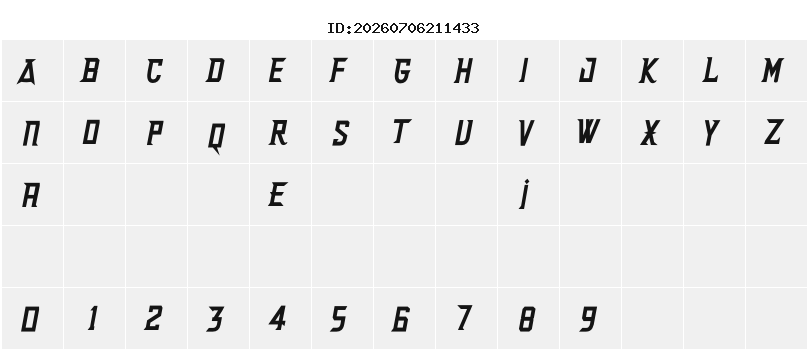
Delux Ultra Preview
• Font Name: Delux Ultra
About Delux Ultra.otf
Delux Ultra.otf is a modern, elegant sans-serif font designed for ultimate readability and visual harmony. Perfect for branding, headlines, web design, and print materials.